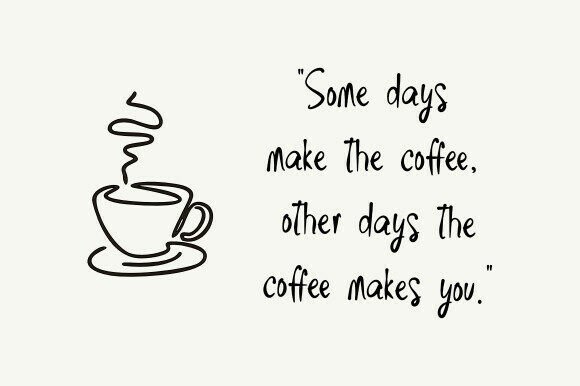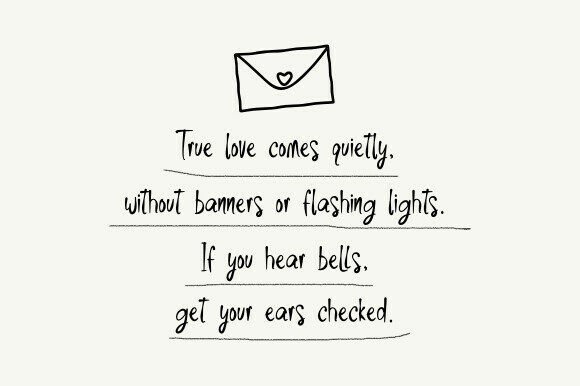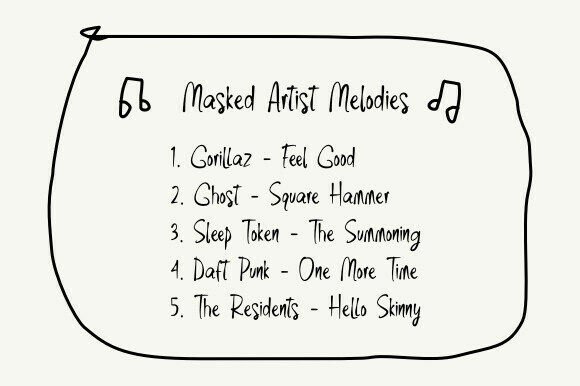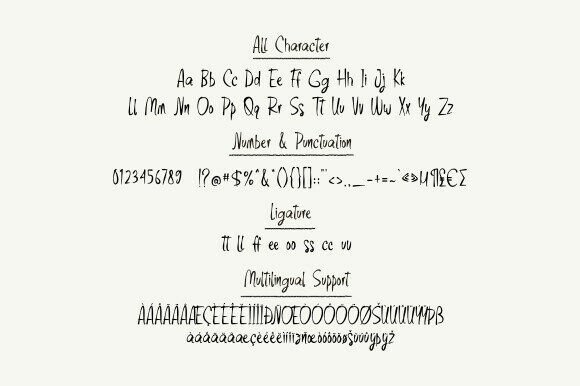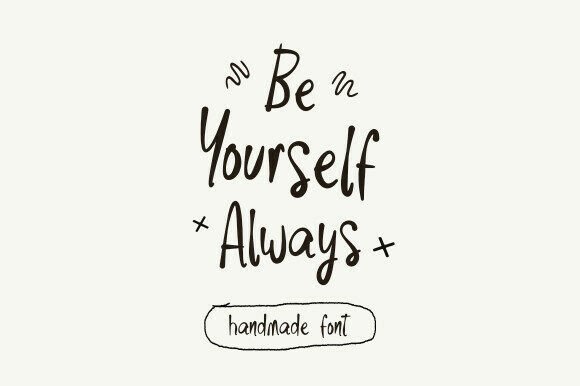
Embracing the Beauty of Imperfection: Introducing the “Be Yourself Always” Font
In a world where digital perfection is often the norm, it’s refreshing to come across a font that celebrates the beauty of imperfection. Meet “Be Yourself Always”, a delightful handmade font that’s all about embracing individuality and warmth. This charming typeface is characterized by its whimsical, organic strokes and a friendly, informal rhythm that’s sure to make your designs feel like a cozy note written by a dear friend.
The Story Behind the Font
“Be Yourself Always” is more than just a font – it’s a movement. In an era where mass-produced designs can feel cold and impersonal, this handmade typeface is a breath of fresh air. Its creator, a talented designer with a passion for crafting unique and personalized designs, set out to create a font that would bring a human touch to digital creations. The result is a monoline, hand-drawn aesthetic that’s perfect for designers and crafters looking to add a touch of warmth and personality to their work.
What Makes “Be Yourself Always” So Special?
So, what sets “Be Yourself Always” apart from other fonts? Here are just a few of its standout features:
• Whimsical, organic strokes: Each letter has been carefully hand-drawn to create a sense of movement and fluidity. The result is a font that feels playful, yet approachable.
• Monoline aesthetic: The font’s monoline design gives it a clean, simple look that’s perfect for creating personalized designs.
• Informal rhythm: The font’s rhythm is friendly and informal, making it perfect for designs that need to feel approachable and relatable.
“Be Yourself Always” is the perfect choice for designers and crafters looking to add a touch of personality to their work. Here are just a few ways you can use this delightful font:
• Personalized greeting cards: Add a touch of warmth and personality to your greeting cards with this charming font.
• DIY craft projects: Whether you’re creating handmade signs, banners, or decorations, “Be Yourself Always” is the perfect choice.
• Children’s book titles: This font is perfect for creating eye-catching titles and headings for children’s books.
• Casual social media graphics: Add a human touch to your social media graphics with this friendly, approachable font.
Adding a Human Touch to Your Designs
In today’s digital age, it’s easy to get lost in a sea of perfection. But with “Be Yourself Always”, you can add a human touch to your designs that’s sure to resonate with your audience. Whether you’re designing for a small business with a “maker” vibe or simply looking to add a touch of personality to your digital creations, this font is the perfect choice.
Here are just a few ways you can use “Be Yourself Always” to add a human touch to your designs:
• Use it for quotes and sayings: This font is perfect for creating inspiring quotes and sayings that will resonate with your audience.
• Add it to your branding: Use “Be Yourself Always” to add a touch of personality to your branding, packaging, or marketing materials.
• Mix it with other fonts: Combine “Be Yourself Always” with other fonts to create a unique and eye-catching design.
In conclusion, “Be Yourself Always” is a delightful handmade font that’s all about embracing individuality and warmth. With its whimsical, organic strokes and friendly, informal rhythm, this font is perfect for designers and crafters looking to add a touch of personality to their work. Whether you’re creating personalized greeting cards, DIY craft projects, or casual social media graphics, “Be Yourself Always” is the perfect choice. So why not give it a try and see how it can bring a human touch to your designs?